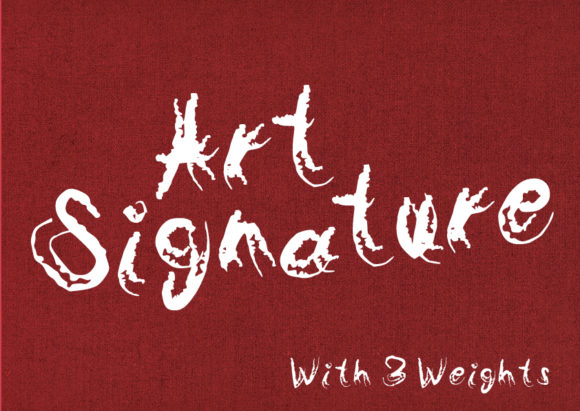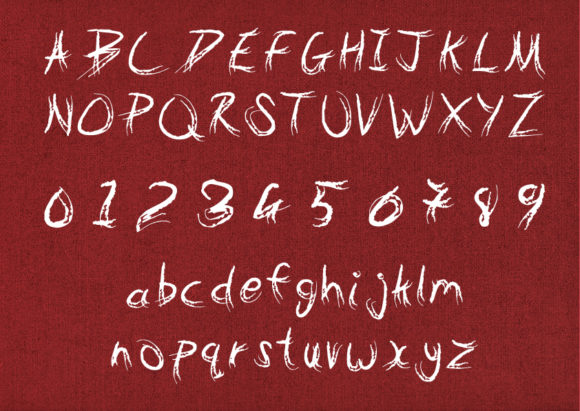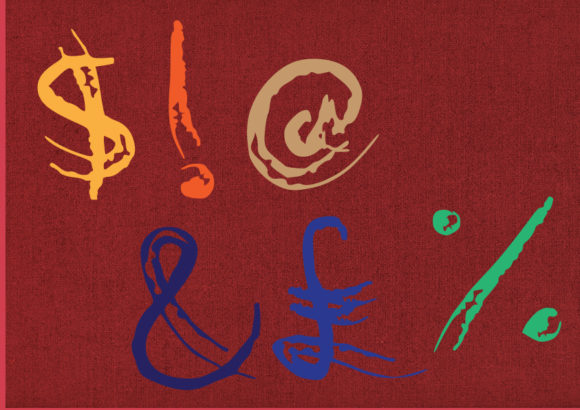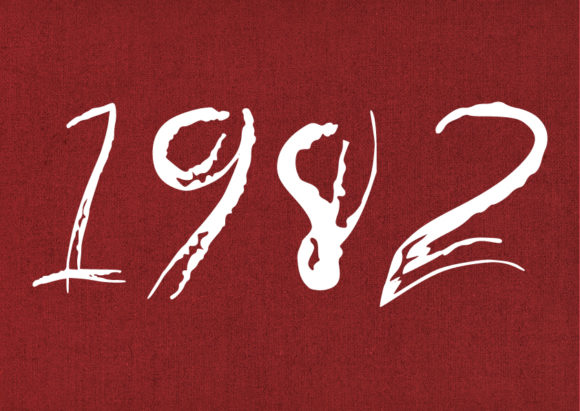
Art Signature Font
About Art Signature Font
Art Signature is inspired by all things art and will add an artistic, raw feel to any design. Get inspired by its unique charm!